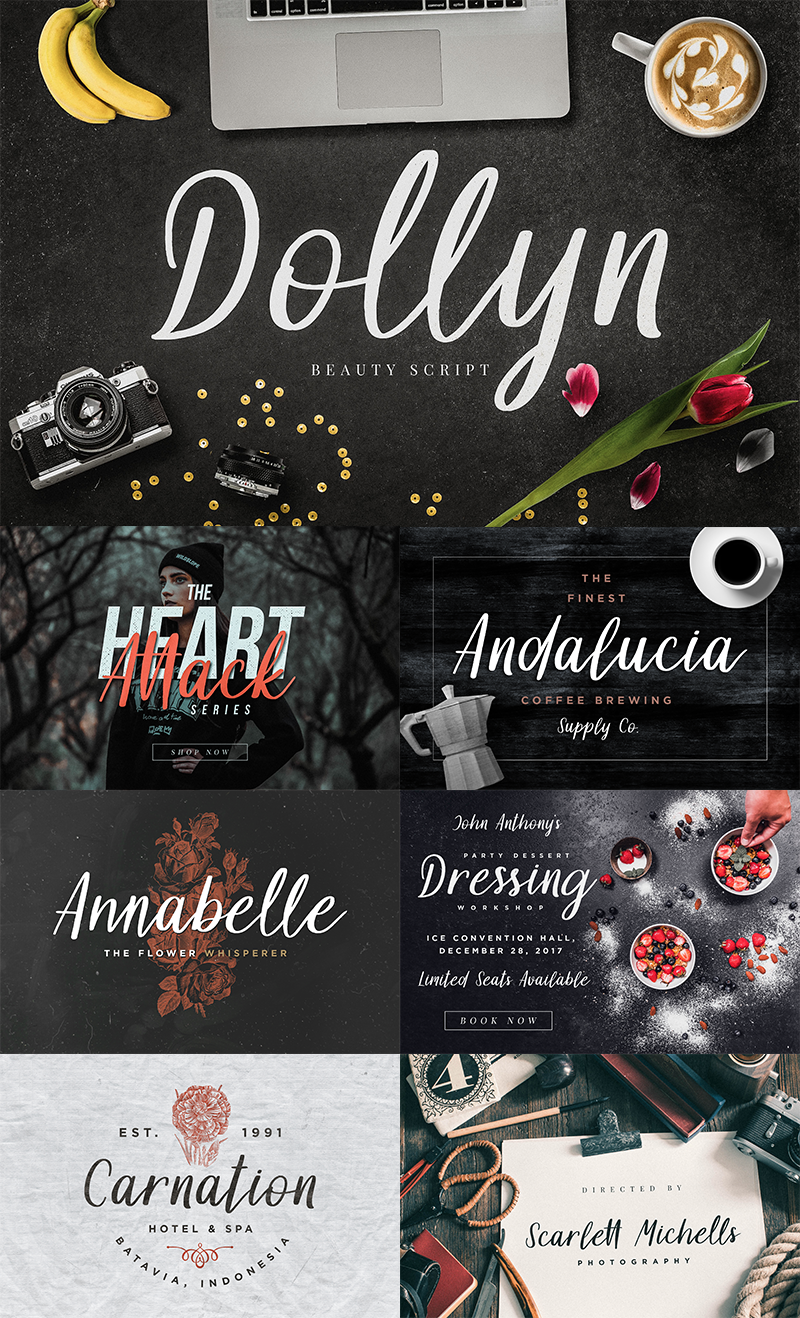
Free Dollyn Script Font
Featuring the miraculous free dollyn script font. Font Space has created this amazing and beautiful typeface. This is absolutely fancy font so you can easily make world-class designs.